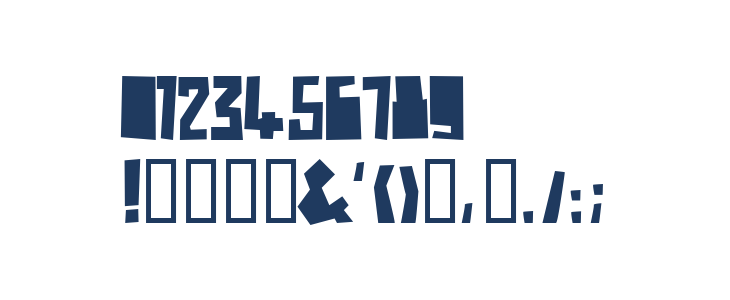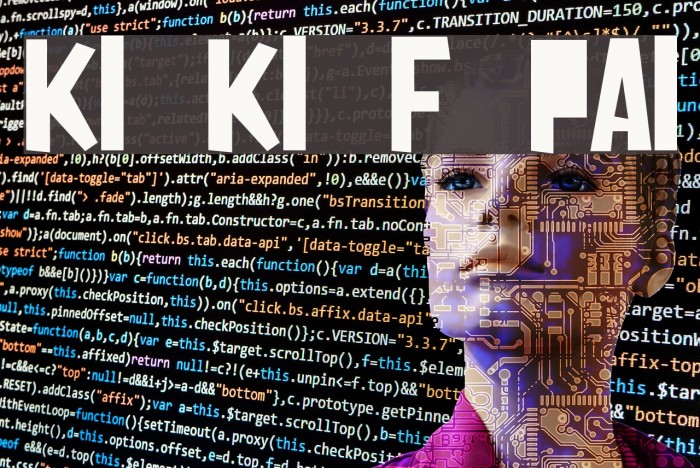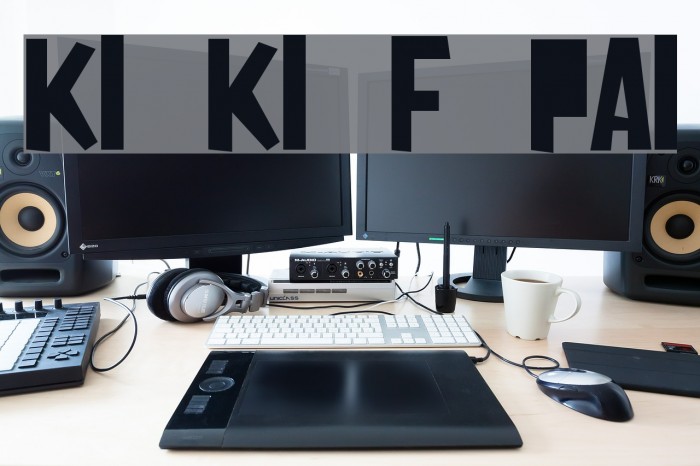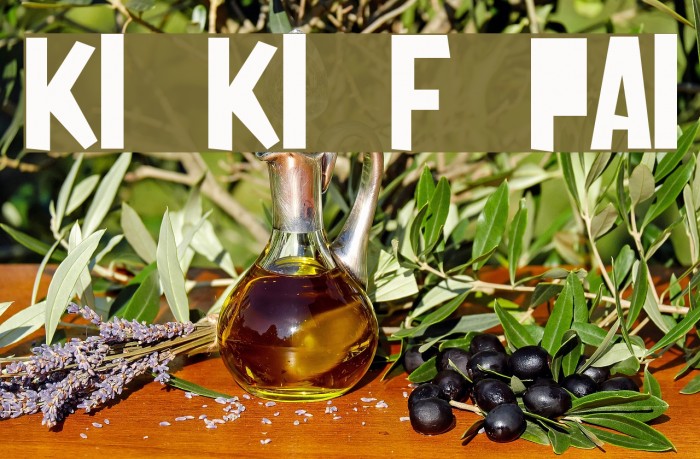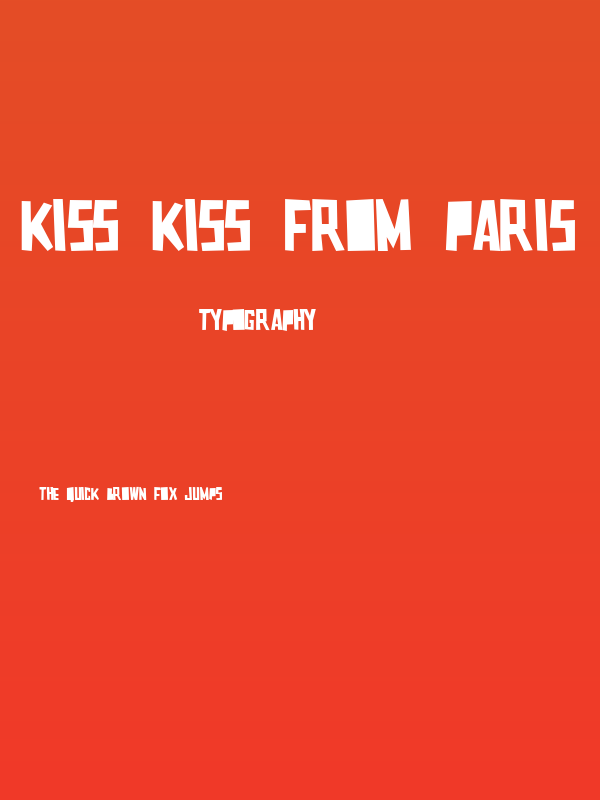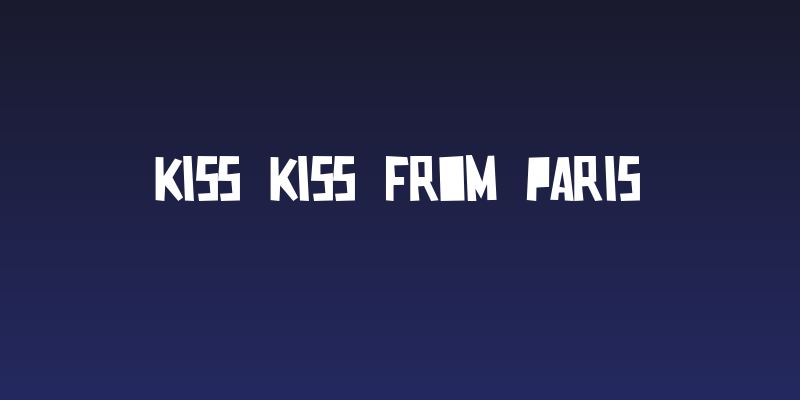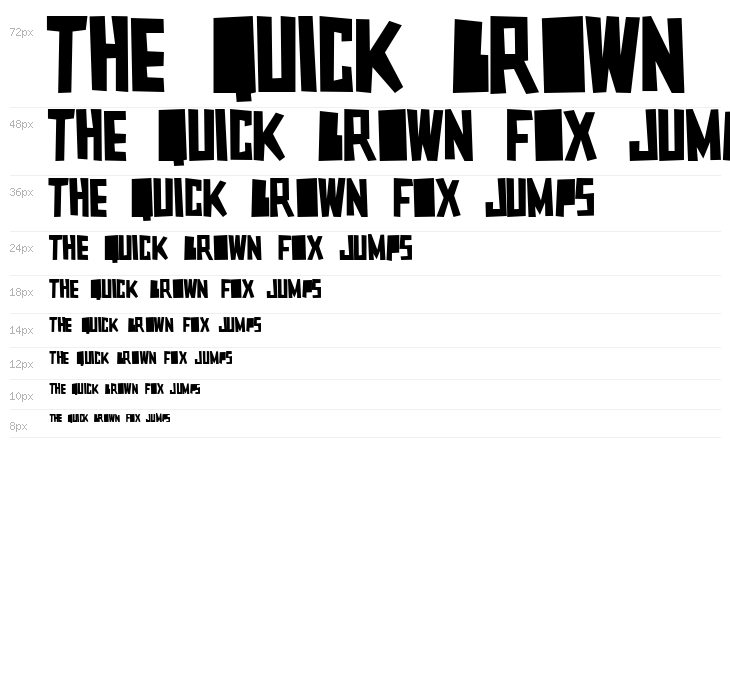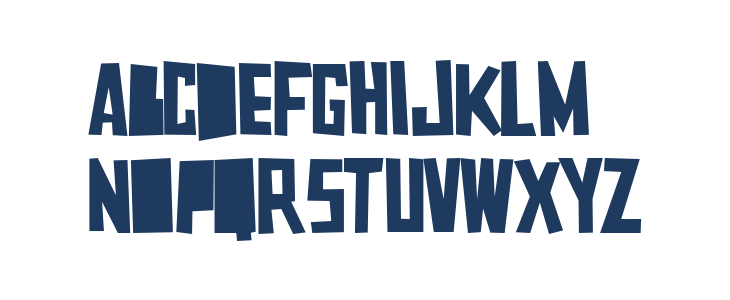
Kiss Kiss From Paris Font
Kiss Kiss From Paris Description
This font features a bold and geometric design with a distinct blocky appearance. Each character is crafted with sharp angles and a solid, filled-in style, creating a strong visual impact. The uppercase and lowercase letters maintain a consistent height, contributing to a uniform look. Numbers and special characters follow the same bold and angular theme, ensuring cohesion across all elements. The font's unique style makes it stand out, ideal for projects that require a modern and edgy aesthetic.